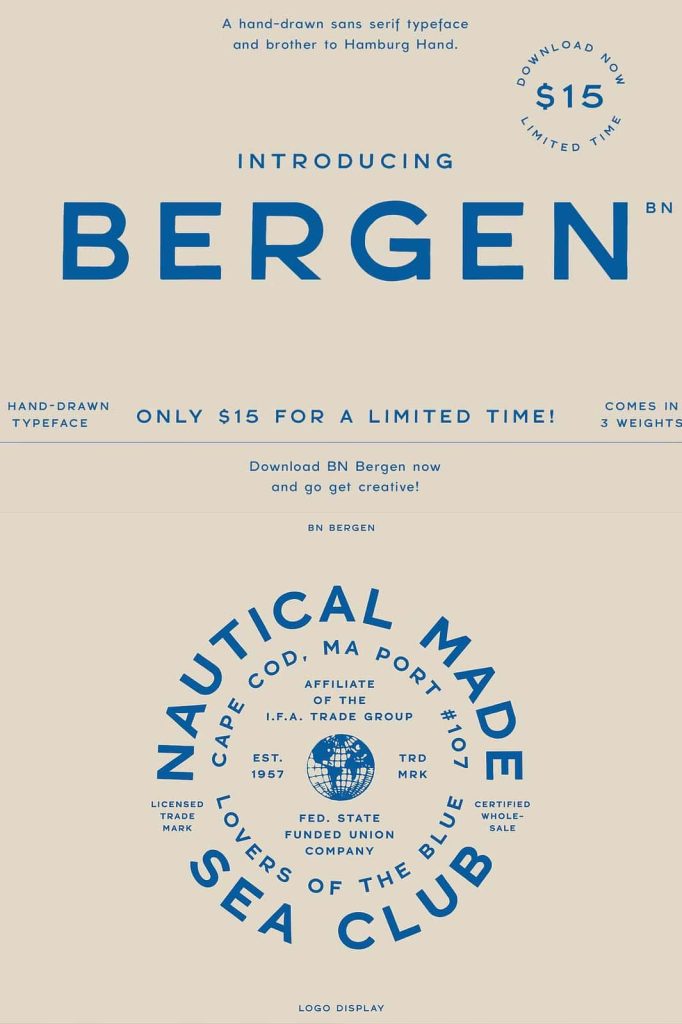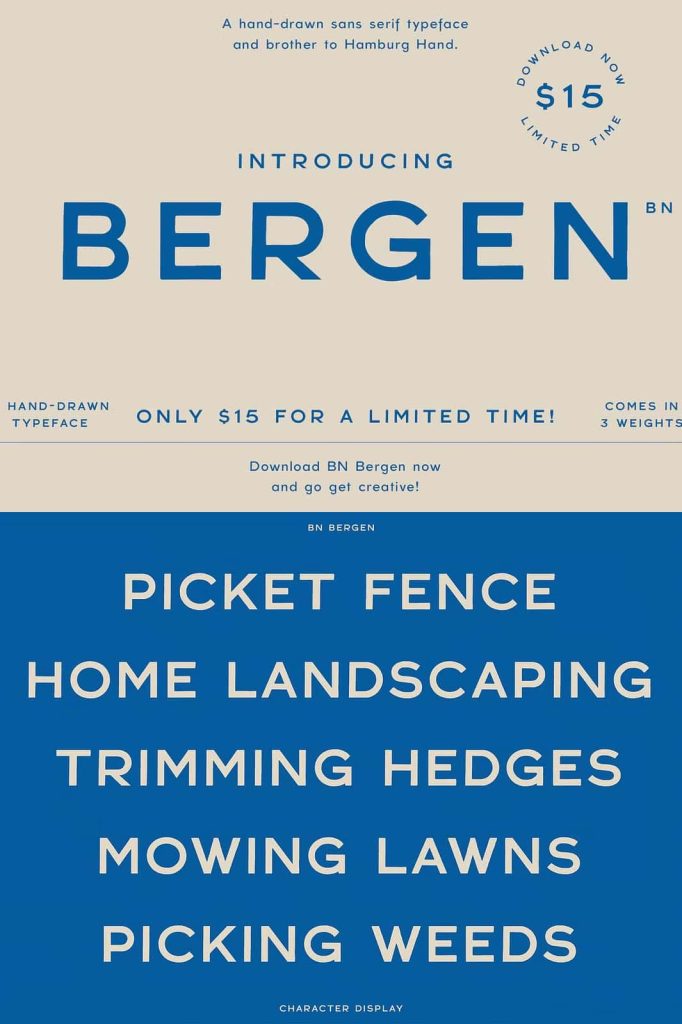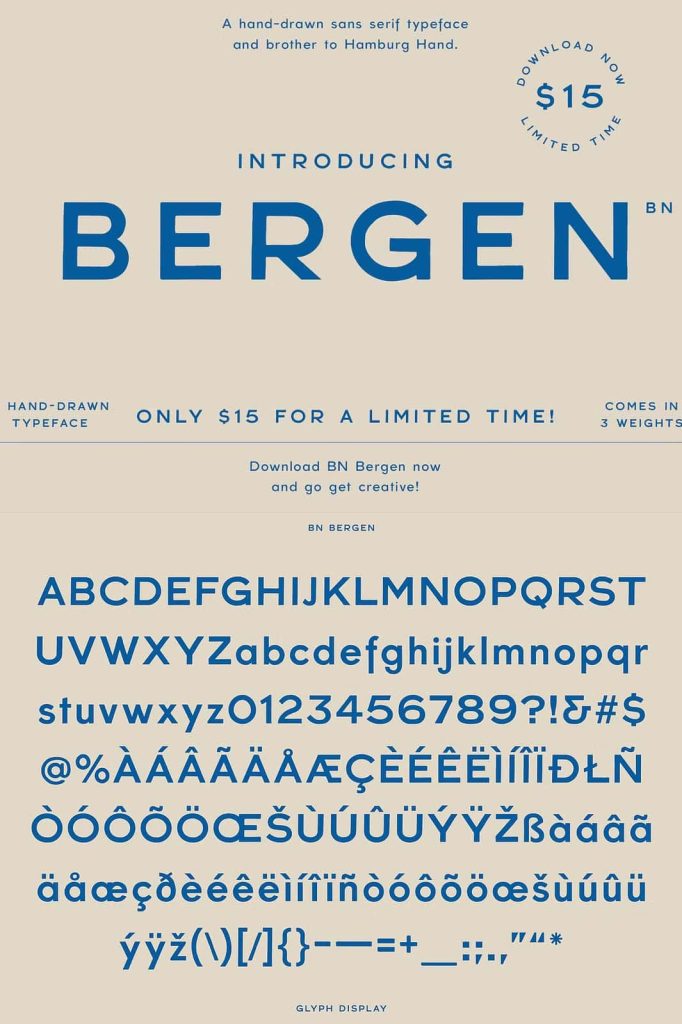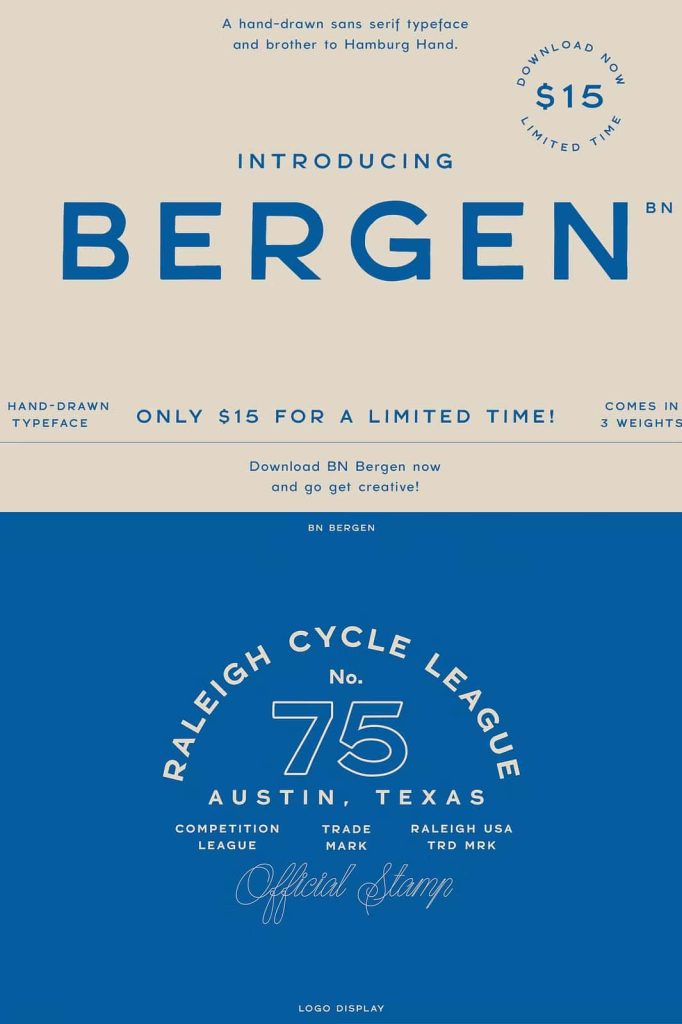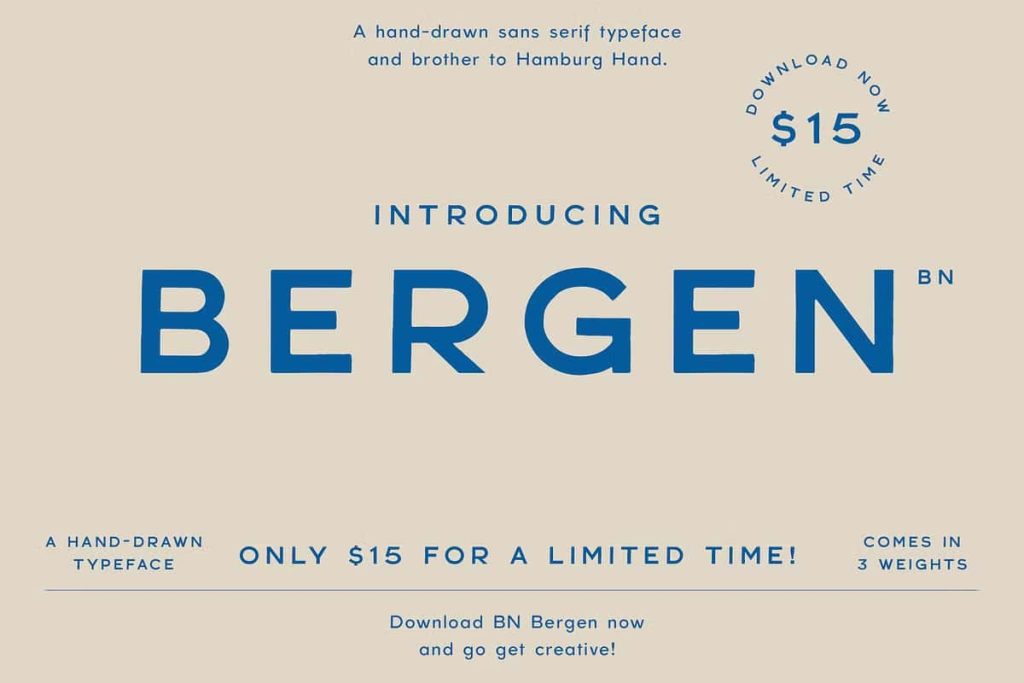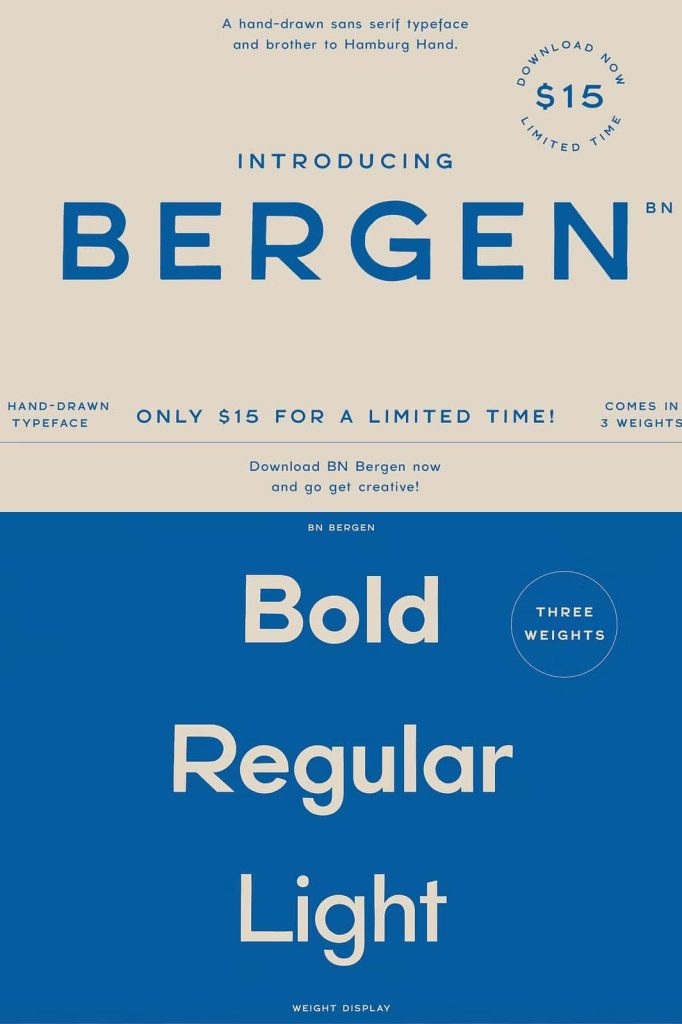
BN Bergen: A Modern Hand-Drawn Sans Serif Typeface with Geometric Precision
BN Bergen is a distinctive hand-drawn sans serif typeface designed to combine organic character with modern geometric structure. Created as a close relative and stylistic cousin to BN Hamburg Hand, BN Bergen brings a refined balance between expressive craftsmanship and functional typography. Its hand-drawn nature adds warmth and individuality, while its geometric foundation ensures clarity, consistency, and professional usability across a wide range of design applications.
Design Concept and Creative Direction
At its core, BN Bergen was developed to offer designers a typeface that feels personal without sacrificing precision. Unlike purely mechanical sans serif fonts, BN Bergen introduces subtle irregularities that reflect the human hand, giving each letterform a natural and authentic presence. These details prevent the typeface from feeling sterile, while still maintaining strong visual discipline.
The modern geometric form serves as the structural backbone of BN Bergen. Clean shapes, balanced proportions, and consistent spacing ensure that the typeface remains easy to read and visually stable. This combination of hand-drawn texture and geometric order makes BN Bergen especially effective for contemporary design projects that demand originality without chaos.
Three Weights for Flexible Design Systems
BN Bergen is available in three carefully crafted weights, allowing designers to build clear typographic hierarchies with ease. Each weight maintains the same core design language, ensuring visual harmony when used together. This flexibility makes BN Bergen suitable for both bold statements and supporting text within the same project.
The lighter weight works well for subtle headlines, captions, and supporting text where clarity and elegance are essential. The regular weight offers a balanced tone that performs well in most display and branding contexts. The heavier weight delivers strong visual impact, making it ideal for logos, signage, and attention-grabbing layouts.
Hand-Drawn Character with Controlled Consistency
One of the defining qualities of BN Bergen is its hand-drawn appearance. Each letterform carries slight variations that give the typeface a lively and approachable personality. However, these variations are carefully controlled to avoid inconsistency or distraction. The result is a font that feels handcrafted yet polished, suitable for professional use.
This balance allows BN Bergen to stand out in competitive visual environments while remaining legible and adaptable. Designers can confidently use it in projects that require a human touch without compromising on structure or alignment.
Geometric Influence and Modern Appeal
The geometric influence in BN Bergen ensures that the typeface aligns well with modern design trends. Circular forms, straight strokes, and well-defined angles contribute to a clean and contemporary aesthetic. These elements also enhance readability, especially in larger display sizes where shape recognition plays a crucial role.
As a cousin to BN Hamburg Hand, BN Bergen shares a similar design DNA while offering its own unique personality. This makes it an excellent option for designers looking to expand an existing typographic system while maintaining stylistic consistency.
Versatile Applications Across Graphic Design
BN Bergen excels in a wide range of graphic design applications. Its expressive nature makes it ideal for creating unique display layouts that demand attention and character. At the same time, its solid construction allows it to perform reliably in more structured environments such as branding systems and industrial design.
The typeface is particularly well suited for logo design, where individuality and memorability are essential. Its bold shapes and hand-drawn texture help logos feel distinctive and authentic. BN Bergen also works effectively in posters, packaging, editorial headlines, and digital interfaces, where a balance between personality and clarity is required.
A Typeface Built for Creative Expression and Practical Use
BN Bergen was designed to support creativity without limiting usability. Its three weights, geometric foundation, and hand-drawn character make it a versatile tool for designers working across different industries and media. Whether used for expressive display typography or strong industrial branding, BN Bergen adapts with confidence and style.
For designers seeking a modern hand-drawn sans serif typeface that delivers both uniqueness and control, BN Bergen offers a compelling solution. It captures the warmth of handcrafted lettering while maintaining the structure needed for professional graphic design.